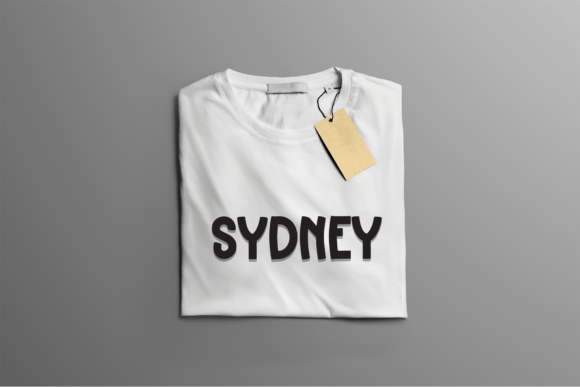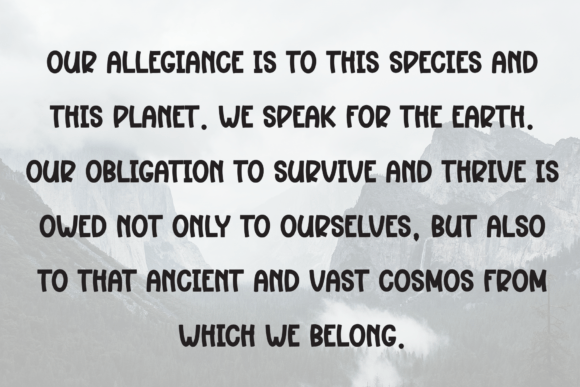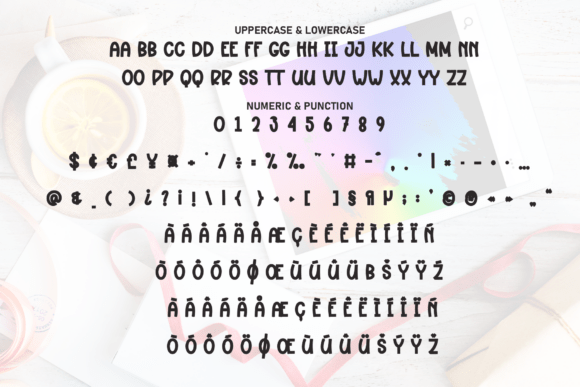
Introduction to Digital Stories Font
As a designer, you know that the right font can elevate a project from good to great. It’s that moment when you’re brainstorming ideas for a new branding campaign, and the perfect font suddenly pops into your head – a font that speaks to your audience and sets the tone for your message. For me, that font is often Digital Stories Font. Its unique blend of simplicity and friendliness has a way of making even the most complex ideas feel approachable and inviting.
Whether you’re working on a creative project, building a brand, or simply need a design resource for your next big idea, Digital Stories Font is a valuable addition to any toolkit. With its clean lines, balanced letterforms, and subtle rounded edges, it’s a versatile font that delivers clarity and charm in equal measure. And the best part? It’s available for free download, making it the perfect choice for designers on a budget or those who just want to experiment with a new design style.
So, what makes Digital Stories Font so special? Let’s dive in and explore its features, and see why it’s become a go-to choice for designers looking to add a touch of warmth and personality to their designs.
Key Features of Digital Stories Font
- Unique and Creative Typography: The Digital Stories Font offers a wide range of unique and creative typography options, perfect for adding a personal touch to any design project.
- Transparent Background Option: This font allows for a transparent background, making it ideal for use on images or videos with complex backgrounds.
- High-Quality Design Resource: The Digital Stories Font is a high-quality design resource, suitable for use in various creative projects, including digital art, graphic design, and more.
- High Resolution: The font is designed at a high resolution of 300 DPI, making it suitable for use in large-scale designs, such as billboards or posters.
- Perfect for Creative Projects: The Digital Stories Font is perfect for use in creative projects, including digital art, graphic design, and more, due to its unique and creative typography options.
Honest Review: Digital Stories Font
I recently stumbled upon the Digital Stories Font while searching for a high-quality design resource for my creative project. After giving it a try, I’m excited to share my honest review with you.
- The font is incredibly versatile and suitable for a wide range of creative projects.
- The transparent background feature is a game-changer, allowing for seamless integration with any design element.
Overall, I’m impressed with the Digital Stories Font’s high quality and ease of use. It’s definitely a valuable addition to my design arsenal.
- The font library is relatively small, which may limit its usefulness for more complex projects.
Despite these limitations, I highly recommend the Digital Stories Font for any designer looking for a reliable and stylish design resource.
Tips for Getting the Most Out of Digital Stories Font
Use the font in combination with a transparent background to create visually appealing text elements. Experiment with different font sizes and styles to add depth and interest to your design.
The Digital Stories Font is ideal for creative projects such as book covers, magazine articles, and social media graphics. It’s also suitable for use in presentations, reports, and other business materials.